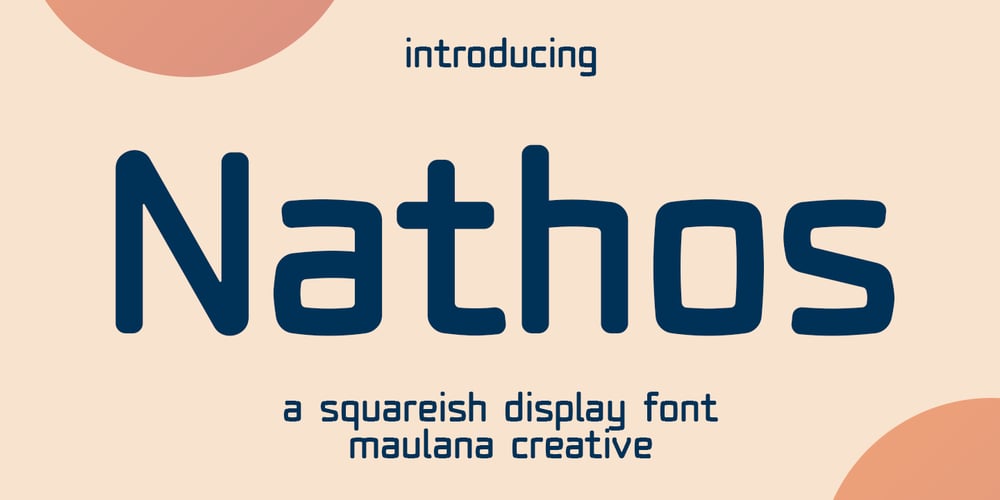
MC Nathos Font Family was designed by Gilang Maulana and published by Maulana Creative. MC Nathos contains 1 styles and family package options. Nathos is a squareish sans display font.regular stroke, fun character with a bit of ligatures and alternates. To give you an extra creative work. Nathos font support multilingual more than 100+ language. This font is good for logo design, Social media, Movie Titles, Books Titles, a short text even a long text letter and good for your secondary text font with script or serif. Make a stunning work with Nathos font.Many Thanks,Maulana Creative